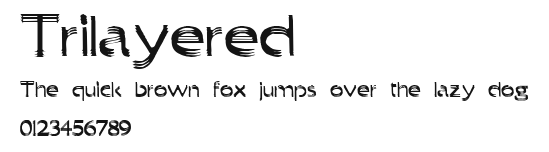
About Trilayered.ttf
Trilayered.ttf is a modern, elegant sans-serif font designed for ultimate readability and visual harmony. Perfect for branding, headlines, web design, and print materials.